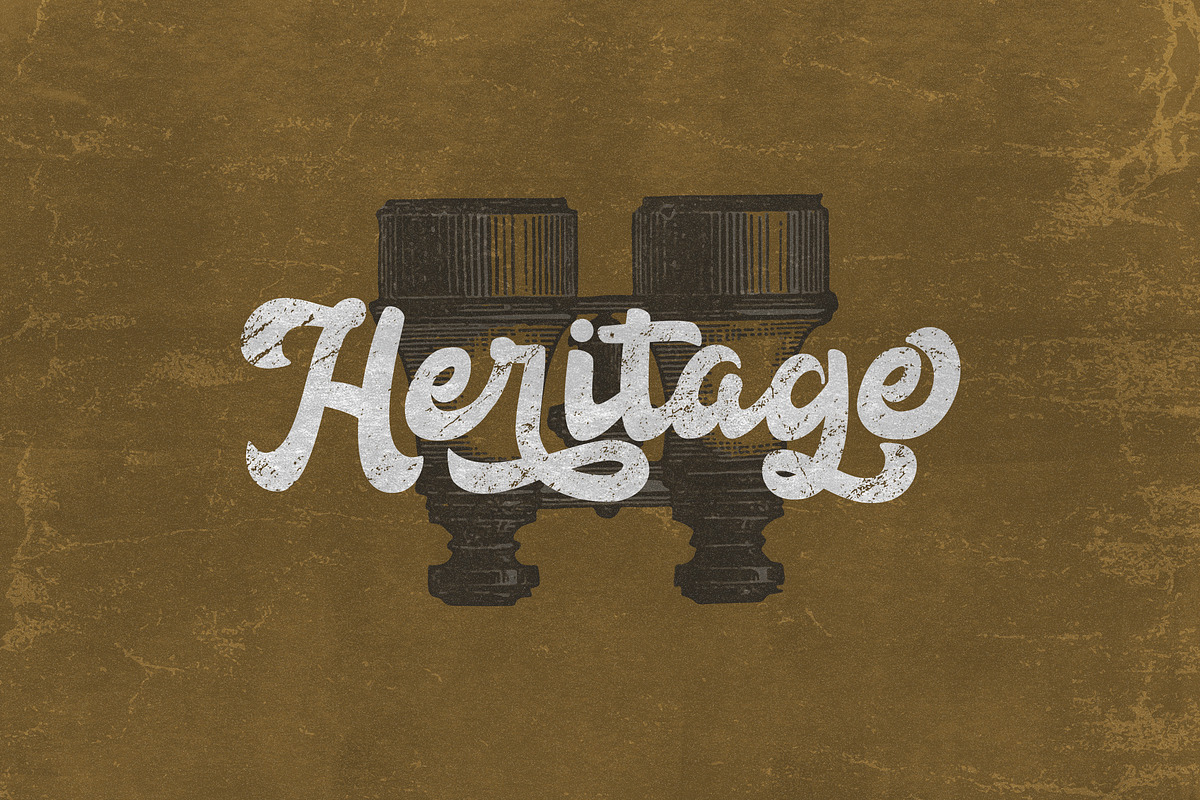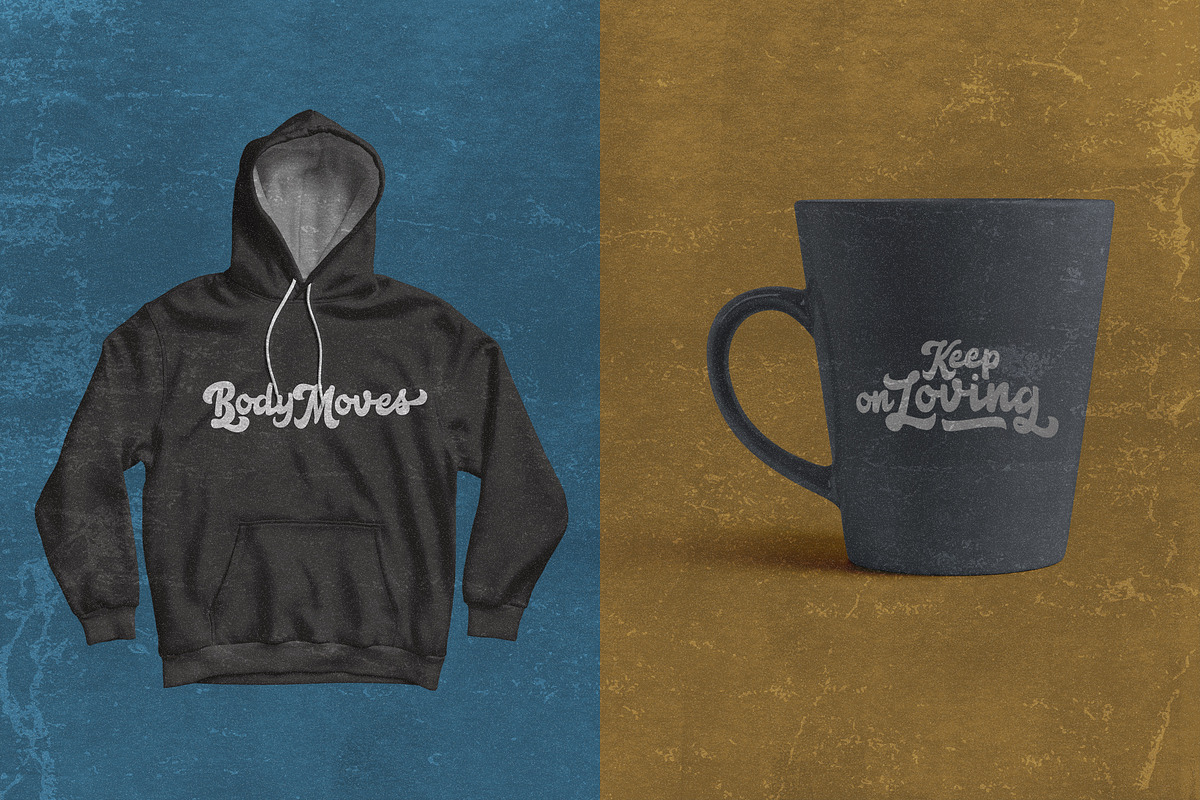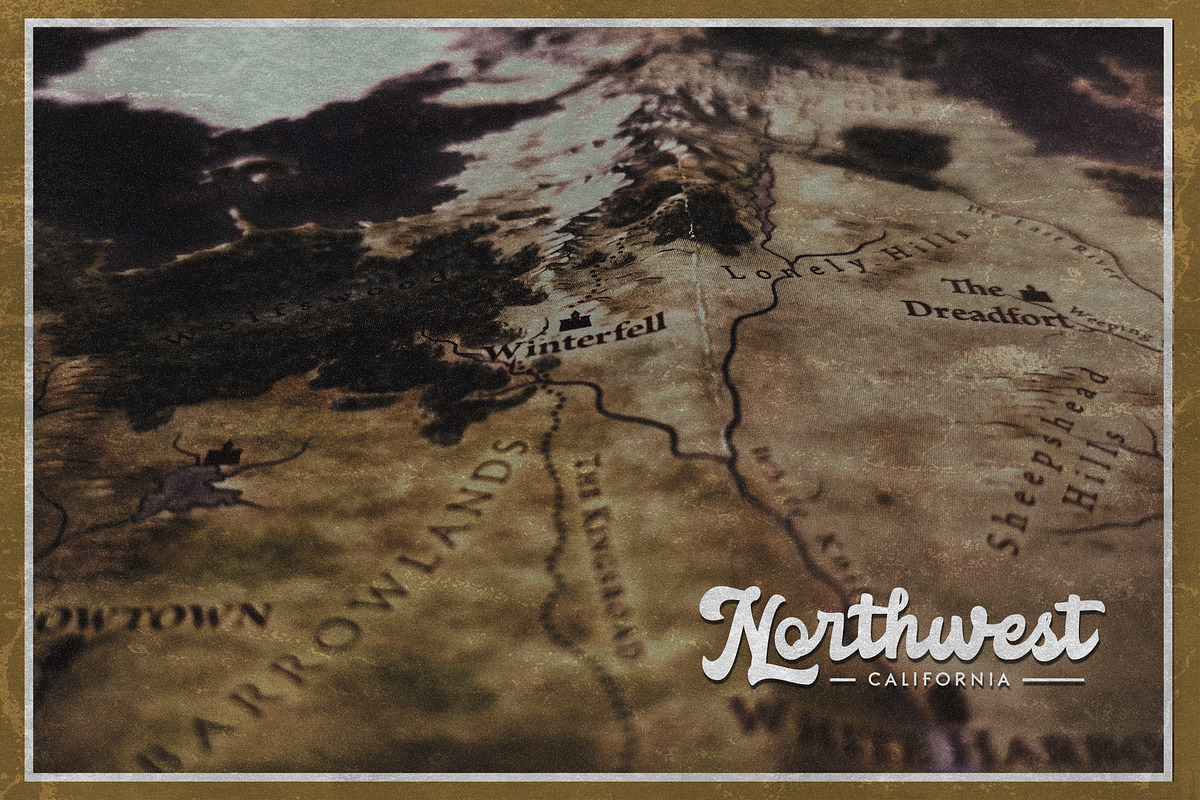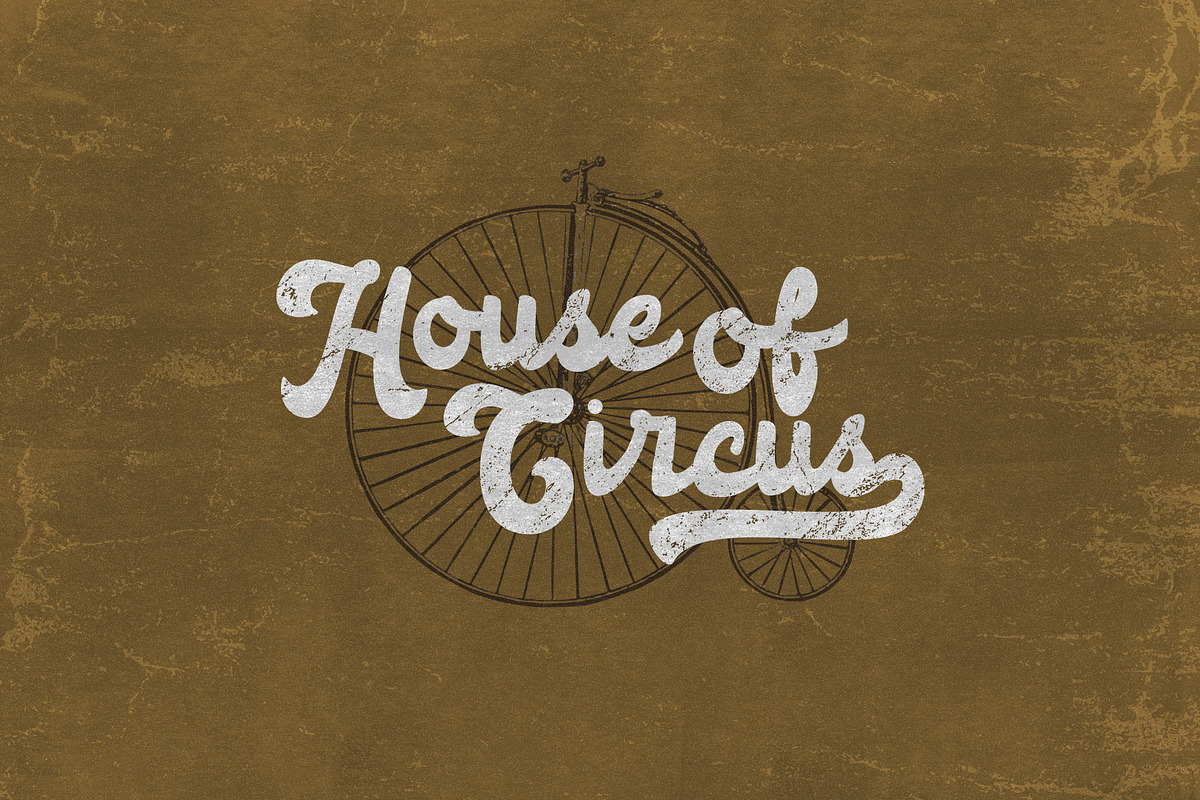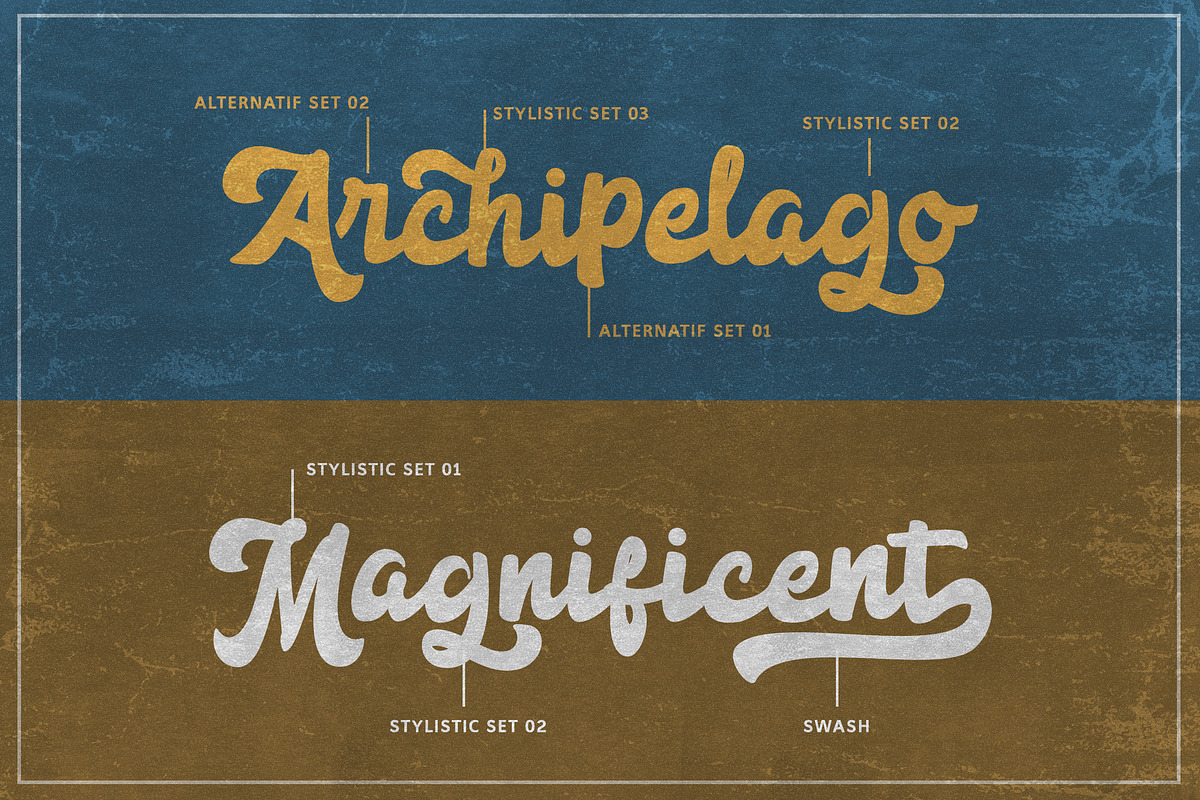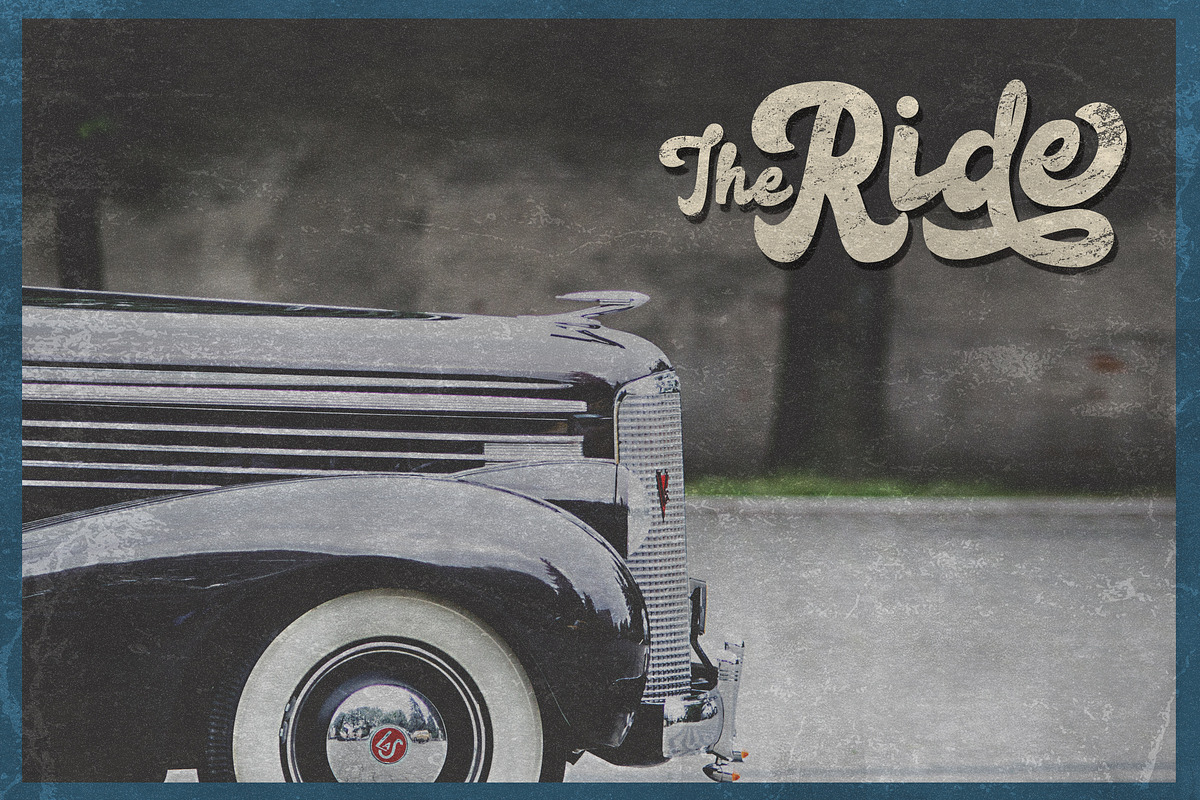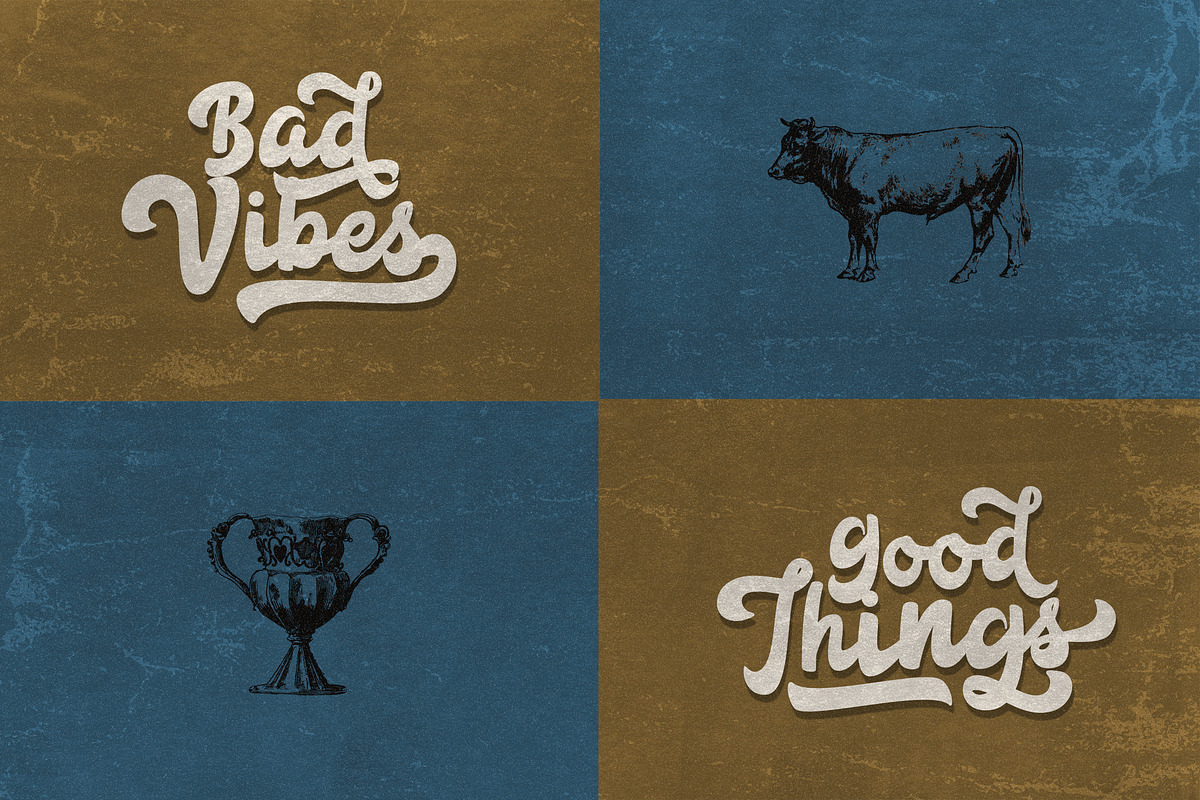
Anggada - Vintage Script Font
"Anggada" is a font display that is made by hand, inspired by classic posters.
comes with uppercase, lowercase, numerals, punctuations and so many variations on each character include OpenType alternates, common ligatures and also additional swash to let you customize your designs. Perfect to use for Logotype, Letterhead, Poster, Apparel Design, Label and etc.